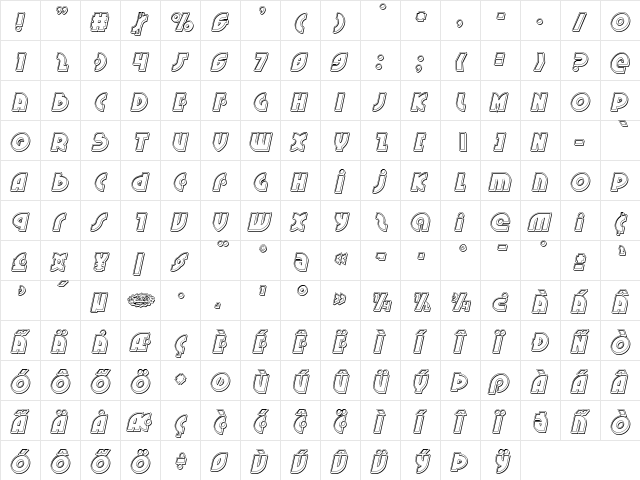
Neuralnomicon Engraved Italic Italic
Design Context for Neuralnomicon Engraved Italic Typeface
Neuralnomicon Engraved Italic brings ornamental detail and strong personality to headlines and identities, where visual impact matters more than quiet functionality. Its italic angle brings a sense of urgency and motion to the letterforms.
Font Pairing: Pair with a clean neutral sans-serif for body copy to let Neuralnomicon Engraved Italic's character lead without overwhelming the composition.
Pro Tip: Treat Neuralnomicon Engraved Italic as the centrepiece of your typographic hierarchy. One strong heading set in a decorative face can carry an entire layout.